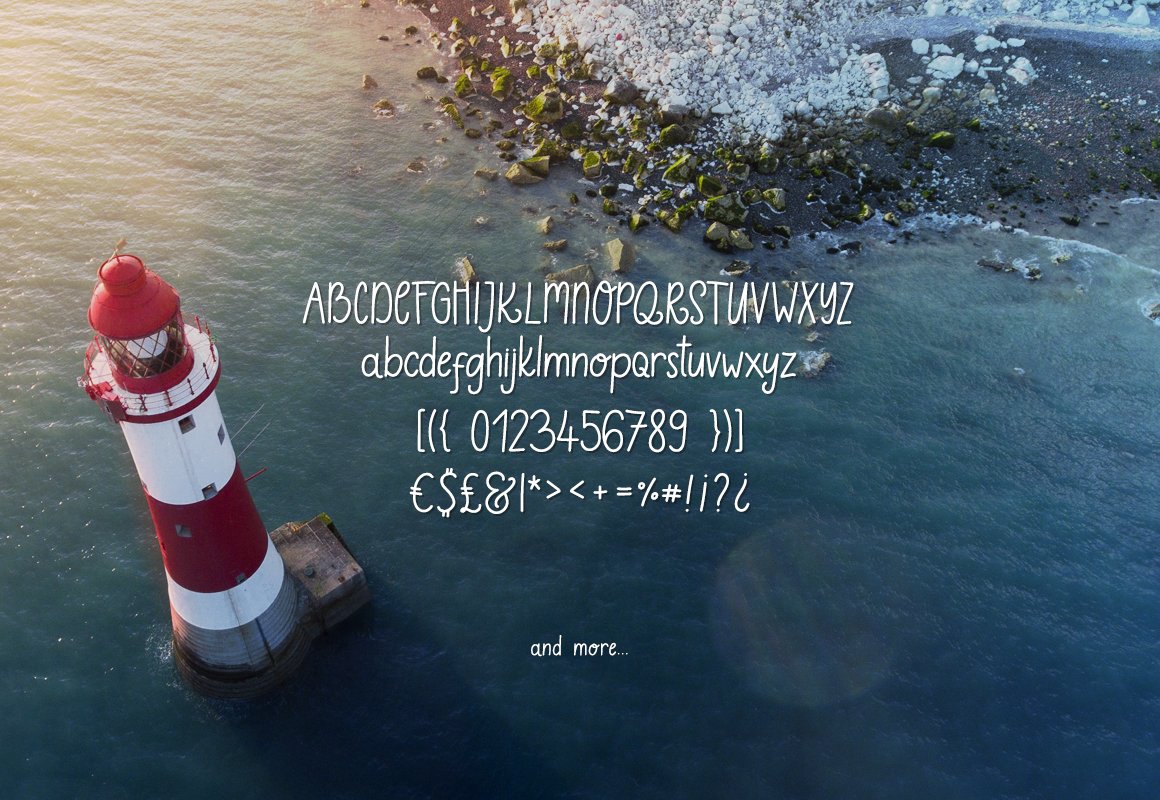
Capris - Fresh Summer Font
Capris is a fresh summer font that includes:
- Lowecase and uppercase letters
- Latin extended characters, basic currencies, punctations, and numbers
- Stylictic alternates and ligatures